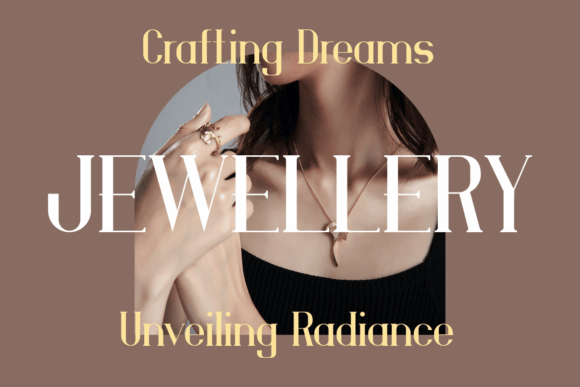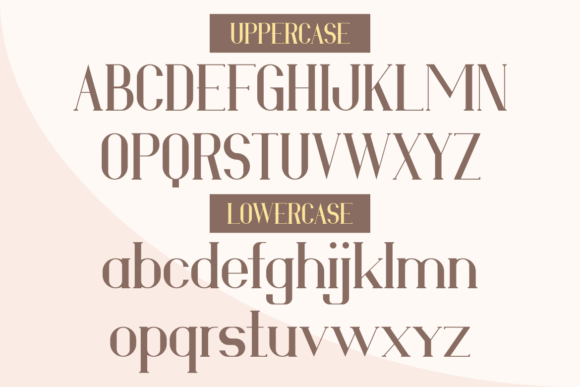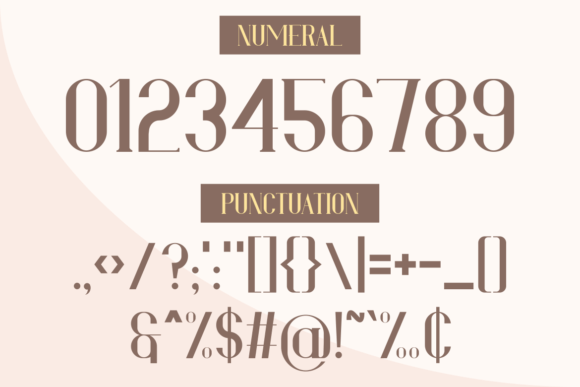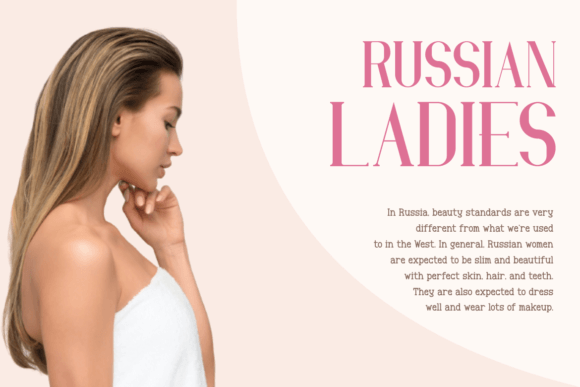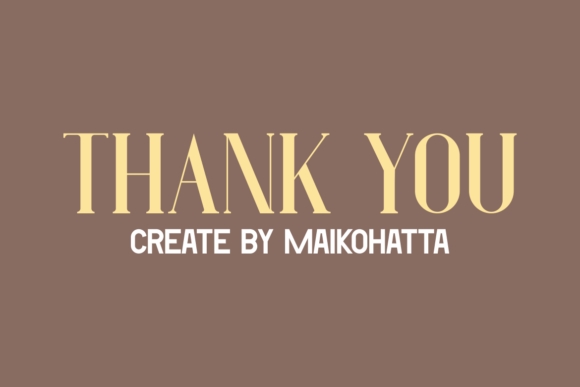
Discover the Elegance of Bellyum Font: A Typographic Masterpiece
In the world of typography, few fonts manage to strike a balance between elegance and sharpness as effectively as the Bellyum Font. This stunning typeface is a testament to meticulous design and attention to detail, making it an excellent choice for designers and crafters looking to elevate their projects. Whether you’re working on print design, promotional materials, or magazine layouts, Bellyum Font is sure to impress.
The Design Philosophy Behind Bellyum Font
Bellyum Font is a typographic masterpiece that harmonizes elegance and sharpness. Every letter within this font is meticulously designed, with a keen focus on balanced proportions and impeccable alignment. The design philosophy behind Bellyum Font emphasizes the importance of creating a visually appealing and harmonious typeface that can be used in a variety of contexts. The result is a font that exudes sophistication and refinement, making it perfect for projects that require a touch of luxury.
Key Features of Bellyum Font
So, what makes Bellyum Font stand out from the rest? Here are some of its key features:
- Balanced Proportions: Each letter in Bellyum Font is carefully crafted to ensure that it is in perfect proportion with the others, creating a harmonious and visually appealing effect.
- Impeccable Alignment: The font’s alignment is spot on, making it easy to read and understand, even at small sizes.
- Elegant and Sharp: Bellyum Font strikes the perfect balance between elegance and sharpness, making it suitable for a wide range of applications.
- Versatile: This font can be used in various contexts, including print design, promotional materials, magazine layouts, and more.
Use Cases for Bellyum Font
Bellyum Font is an incredibly versatile typeface that can be used in a variety of projects. Here are some use cases where this font truly shines:
- Print Design: Bellyum Font is perfect for print design projects, such as brochures, flyers, posters, and business cards.
- Promotional Materials: This font is well-suited for promotional materials, including banners, billboards, and social media graphics.
- Magazine Layouts: Bellyum Font can be used to create stunning magazine layouts, including headings, subheadings, and body text.
- Branding: This font can be used to create a strong brand identity, including logos, packaging, and website design.
Why Designers and Crafters Love Bellyum Font
Designers and crafters love Bellyum Font for several reasons:
- Unique and Distinctive: Bellyum Font is a unique and distinctive typeface that can help designers and crafters stand out from the crowd.
- Elegant and Sophisticated: This font exudes elegance and sophistication, making it perfect for projects that require a touch of luxury.
- Versatile: Bellyum Font can be used in a variety of projects, making it a valuable addition to any designer’s or crafter’s toolkit.
- High-Quality: This font is meticulously designed and crafted to ensure that it meets the highest standards of quality.
In conclusion, Bellyum Font is a typographic masterpiece that harmonizes elegance and sharpness. With its balanced proportions, impeccable alignment, and elegant design, this font is perfect for designers and crafters looking to elevate their projects. Whether you’re working on print design, promotional materials, or magazine layouts, Bellyum Font is sure to impress. So why not give it a try and experience the power of this stunning typeface for yourself?